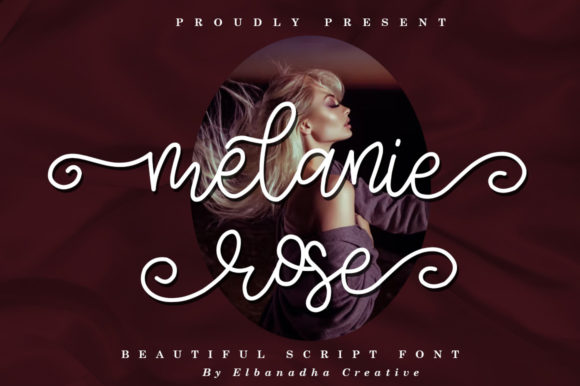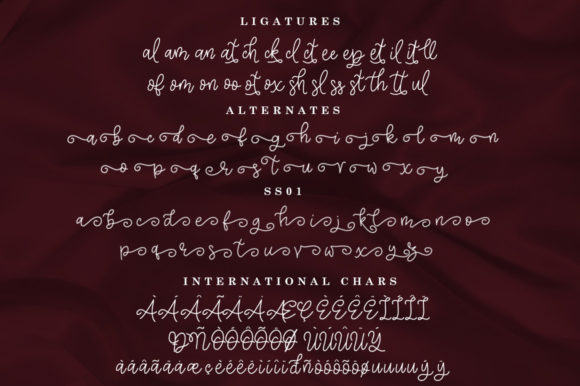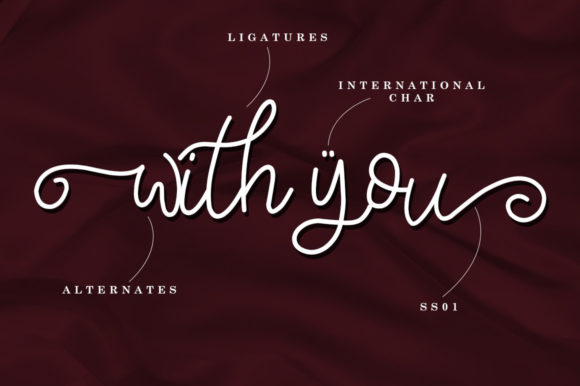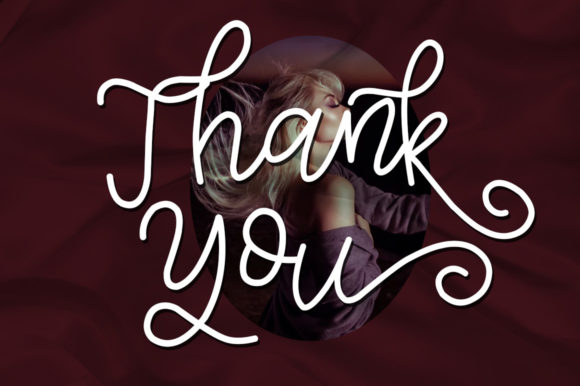
About Melanie Rose Font
Melanie Rose is a simple, vintage, and adaptable handwritten font. You can successfully add this casual font on wedding invitations, business cards, greetings cards, social media posts, wall art, and more. This font is PUA encoded which means you can access all glyphs and swashes with ease!